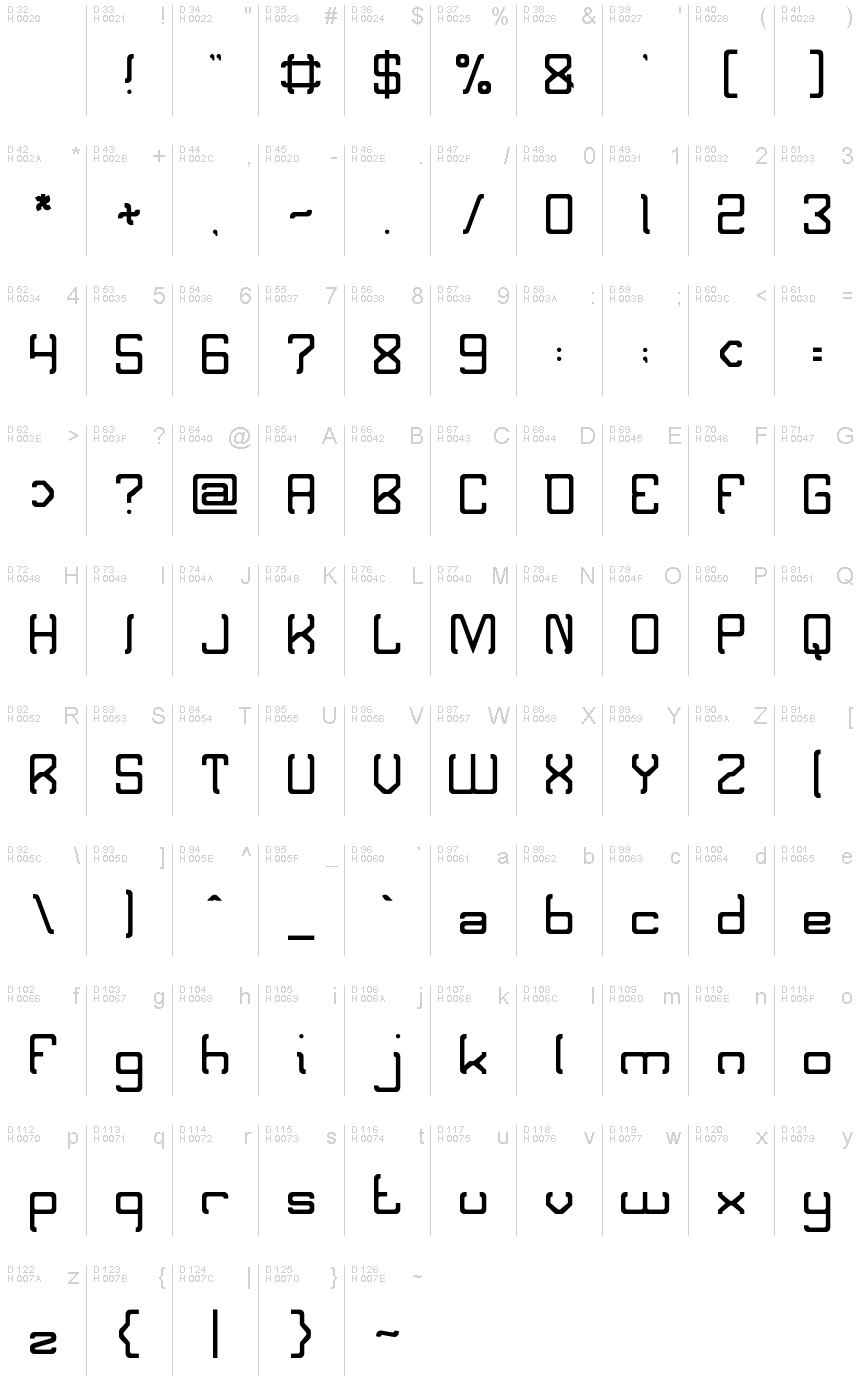
TELEVISION
Television, a captivating display font designed by weknow, exudes a sleek and futuristic vibe with its semi-light weight and techno style. This ypeface is perfect for modern projects that crave attention and innovation. Its clean lines and distinct characters make it ideal for logos, website headers, and app designs. Television adds a touch of sophistication to technology-related brands, gaming platforms, electronic gadgets, or cutting-edge fashion labels. With its literate design, this font elevates any creative endeavor seeking to stand out in the digital realm while effortlessly captivating audiences with its stylishly bold presence.